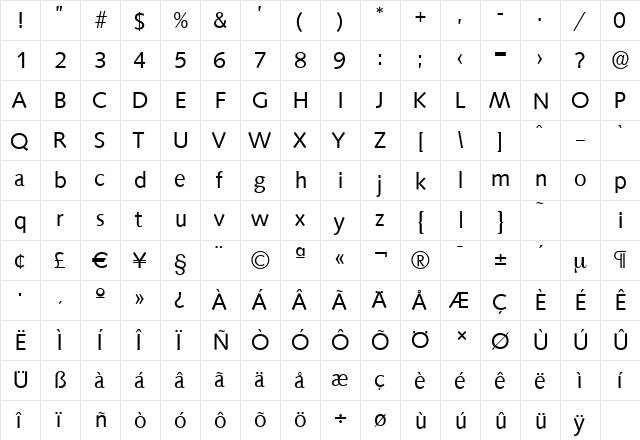
SaxonySerial Regular
Design Context for SaxonySerial Typeface
SaxonySerial takes a measured approach to typography — its balanced proportions and neutral character make it a reliable workhorse for both digital and print work.